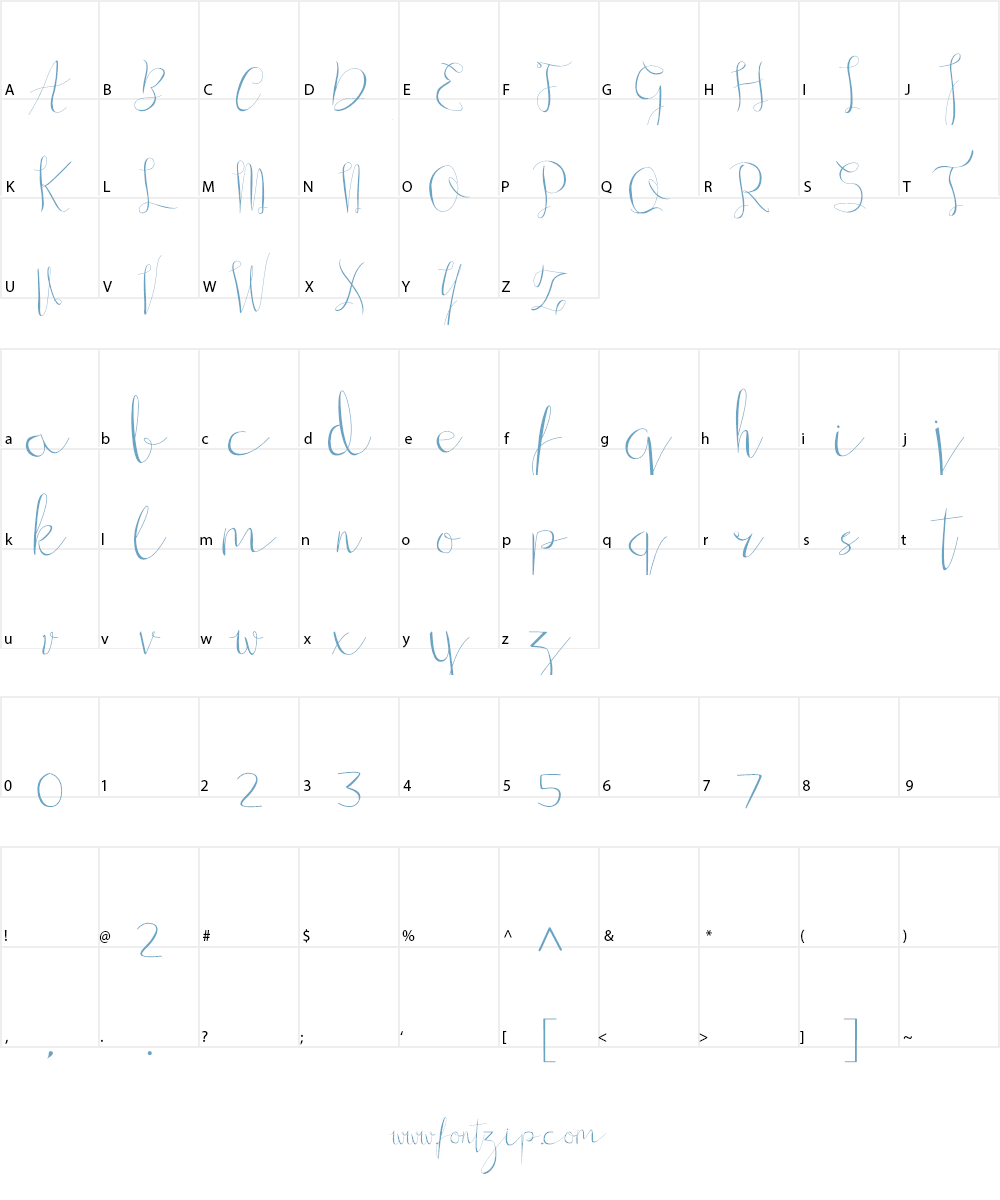
Syahara is a fresh and pleasant taste of Modern Calligraphy based on the type of handwriting.
With complete punctuation, numbers and ascending are included in this case.
Contains Alternative and Style Binders for more beautiful types of logos, business cards, posters, book covers, store brands, and many more of your needs.